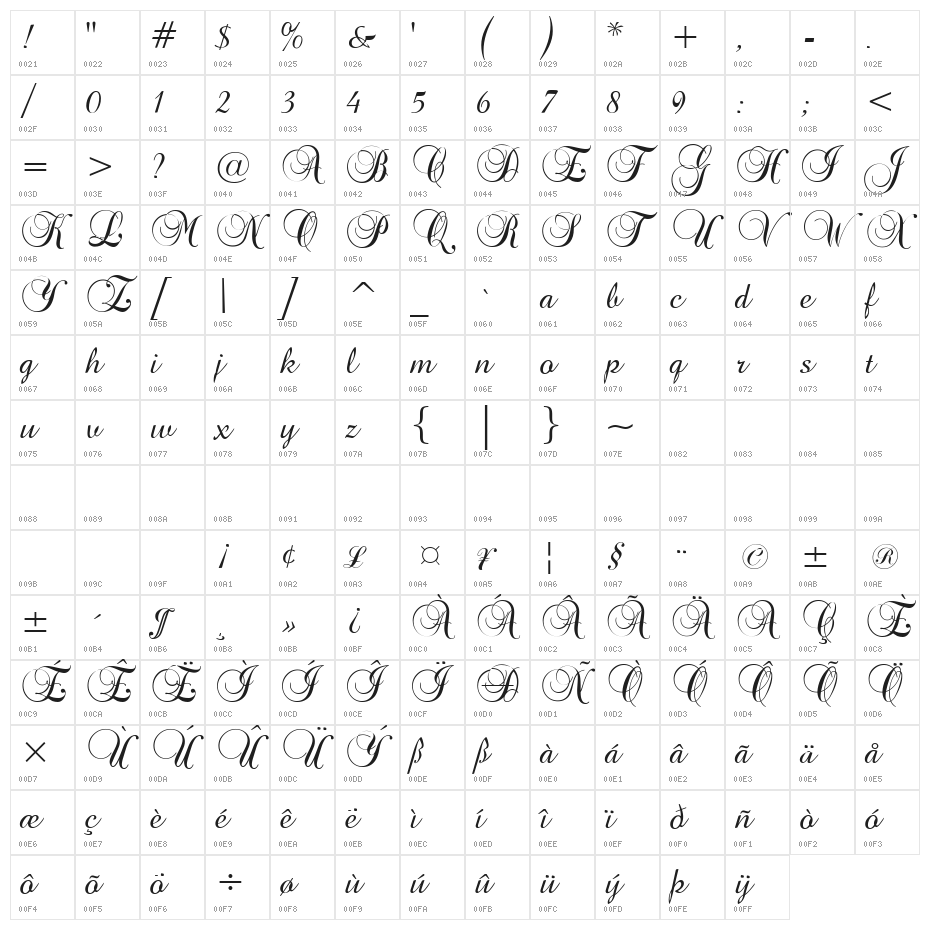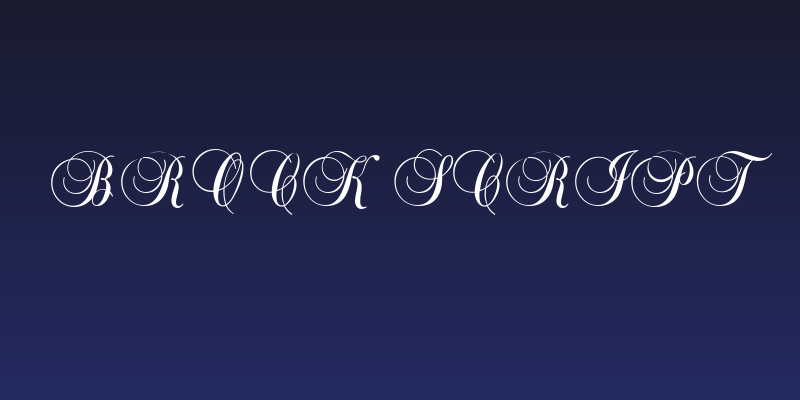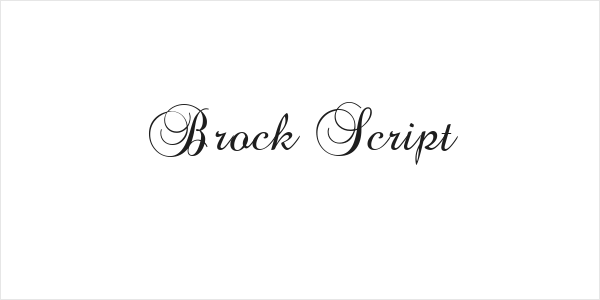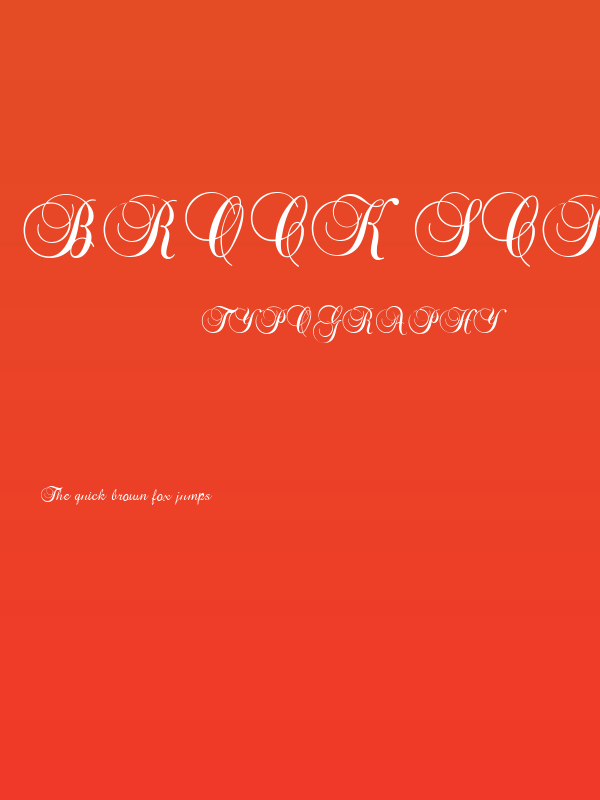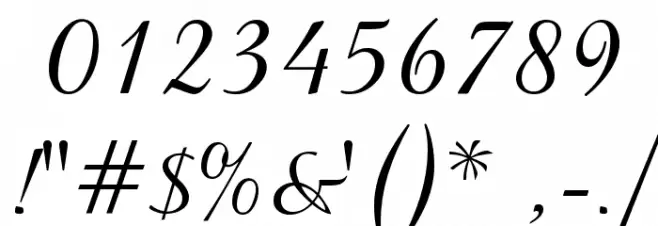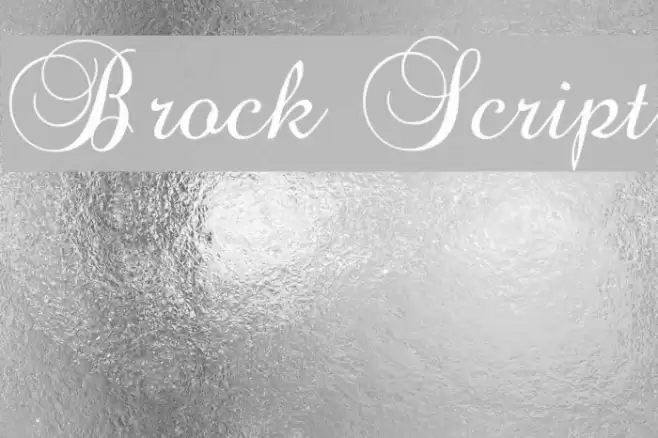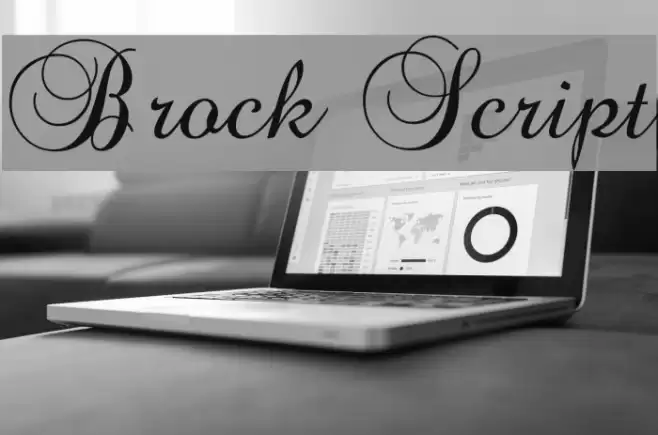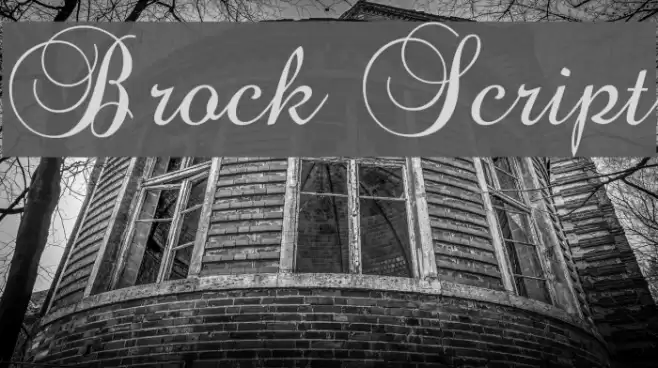
Brock Script Font
Brock Script Description
This elegant script font features ornate, flowing characters that exude sophistication and grace. The uppercase letters are particularly elaborate, with intricate loops and swirls that add a touch of luxury. The lowercase letters maintain a smooth, cursive style, making them highly readable while still retaining a sense of elegance. The numerals are designed with a similar flair, ensuring consistency across all characters. Special characters are thoughtfully crafted to match the overall aesthetic, making this font ideal for formal invitations, branding, and decorative purposes.
| Overall Style | Elegant, Decorative |
| Use Case | Headlines, Invitations, Branding |
| Proposed Projects | Ideal for wedding invitations, luxury branding, elegant signage, and decorative projects. |